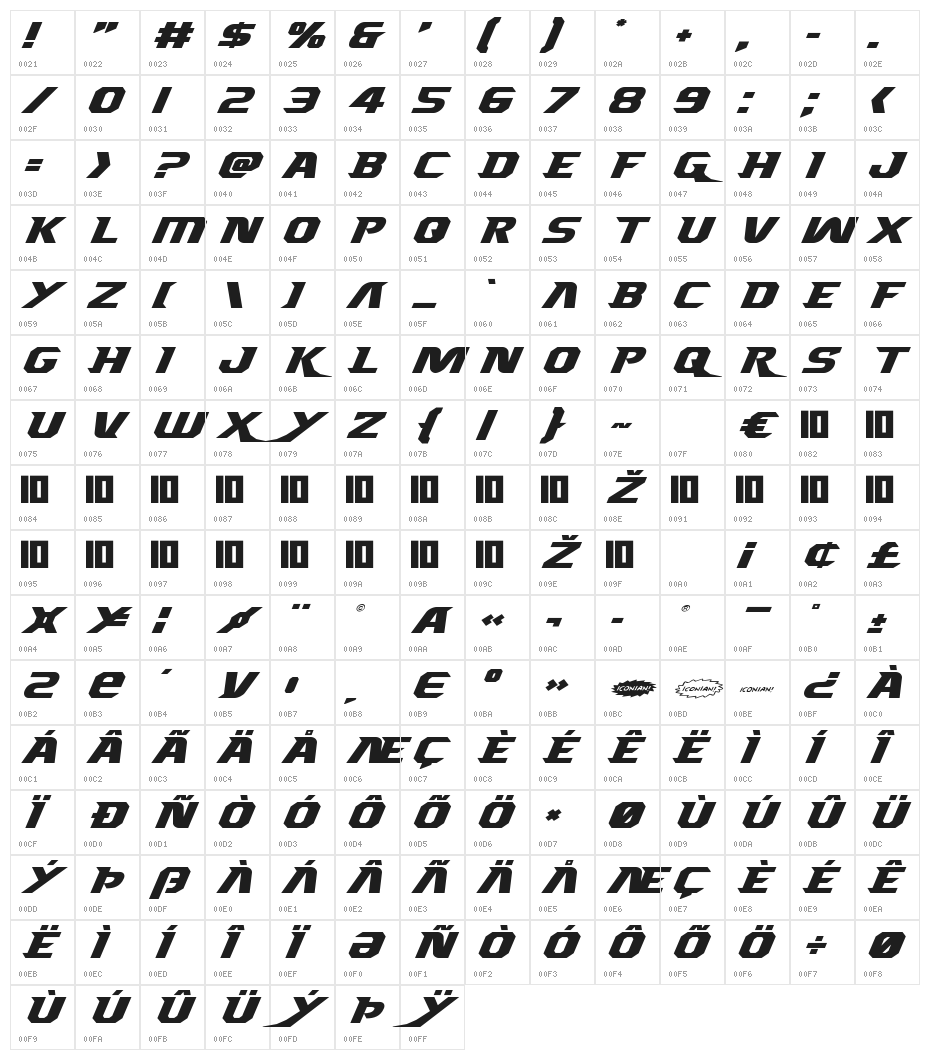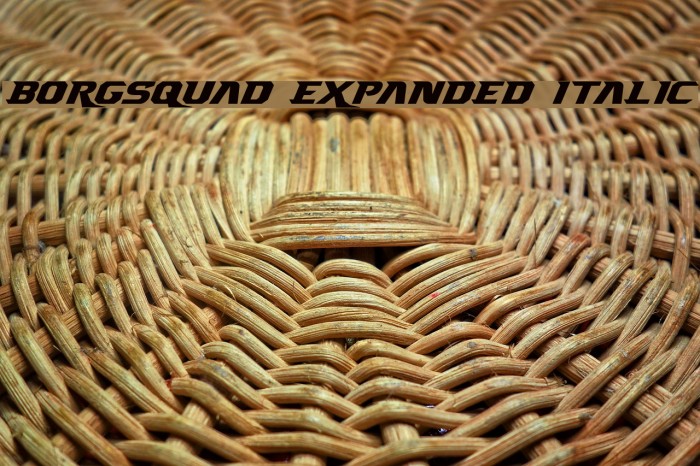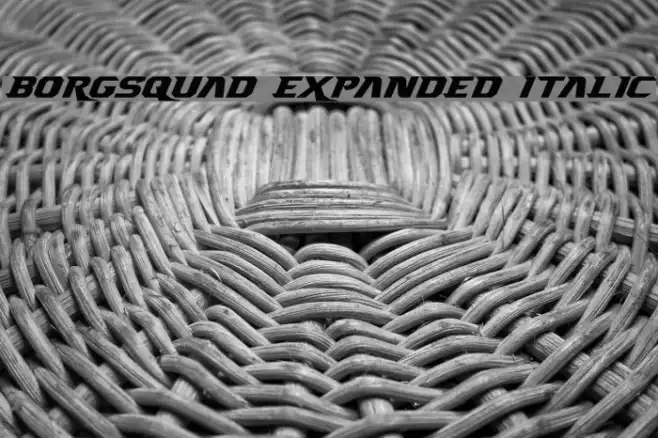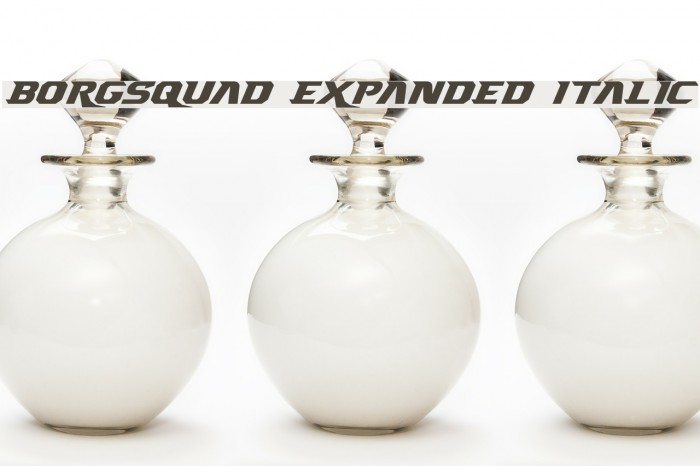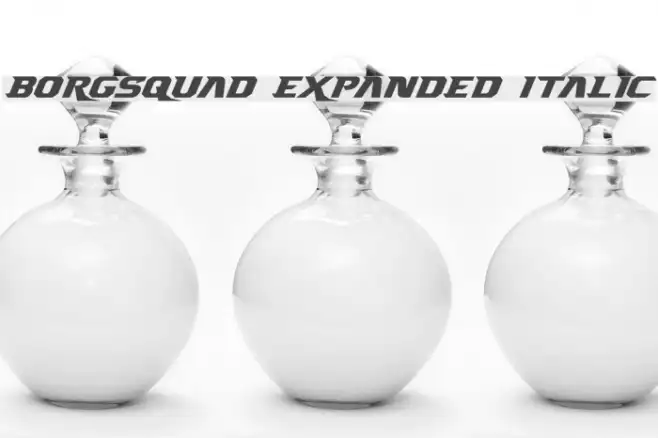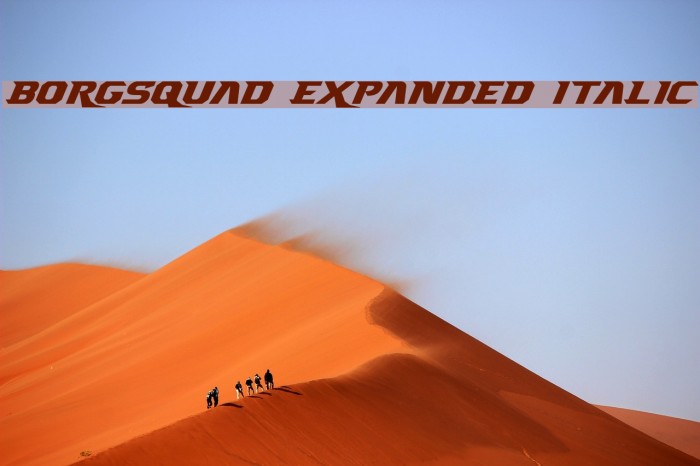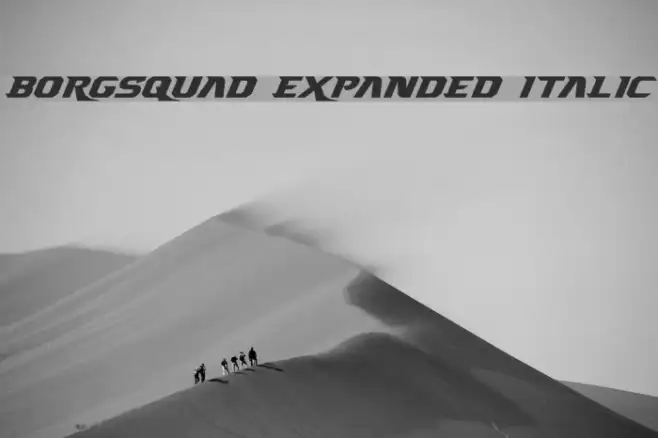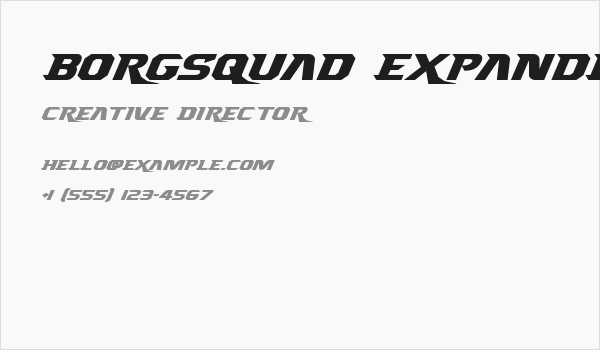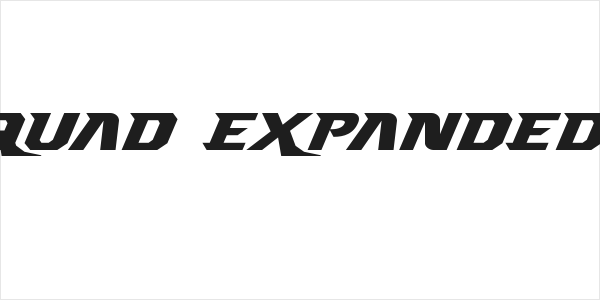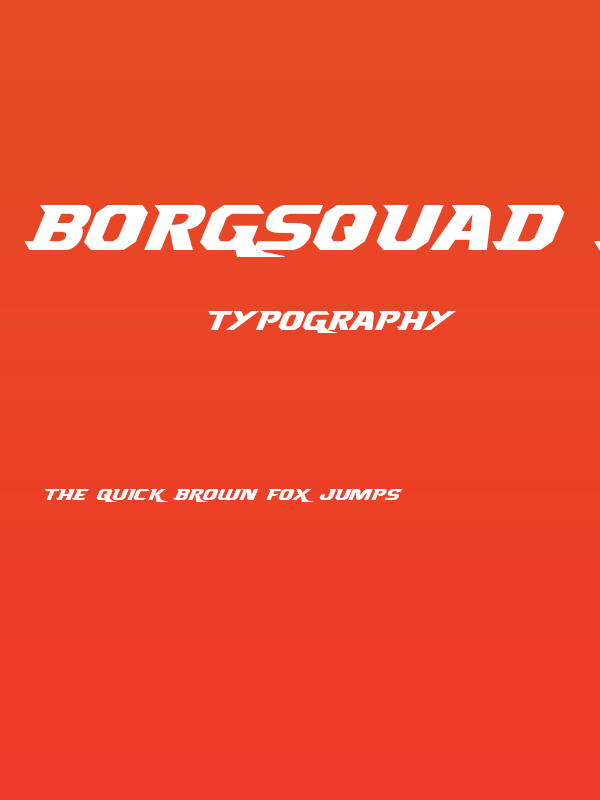
Borgsquad Expanded Italic Font
Borgsquad Expanded Italic Description
This font features a bold and dynamic design with an italicized slant, giving it a sense of motion and energy. The characters are expanded, providing a wide and impactful appearance. The angular and geometric shapes of the letters contribute to a futuristic and modern aesthetic. The font maintains a consistent stroke thickness, offering a medium contrast that enhances readability while retaining its bold presence. Its unique style makes it suitable for projects that require a strong visual impact.
| Proposed Projects | Ideal for sports branding, video game titles, sci-fi themed posters, and dynamic logo designs. |